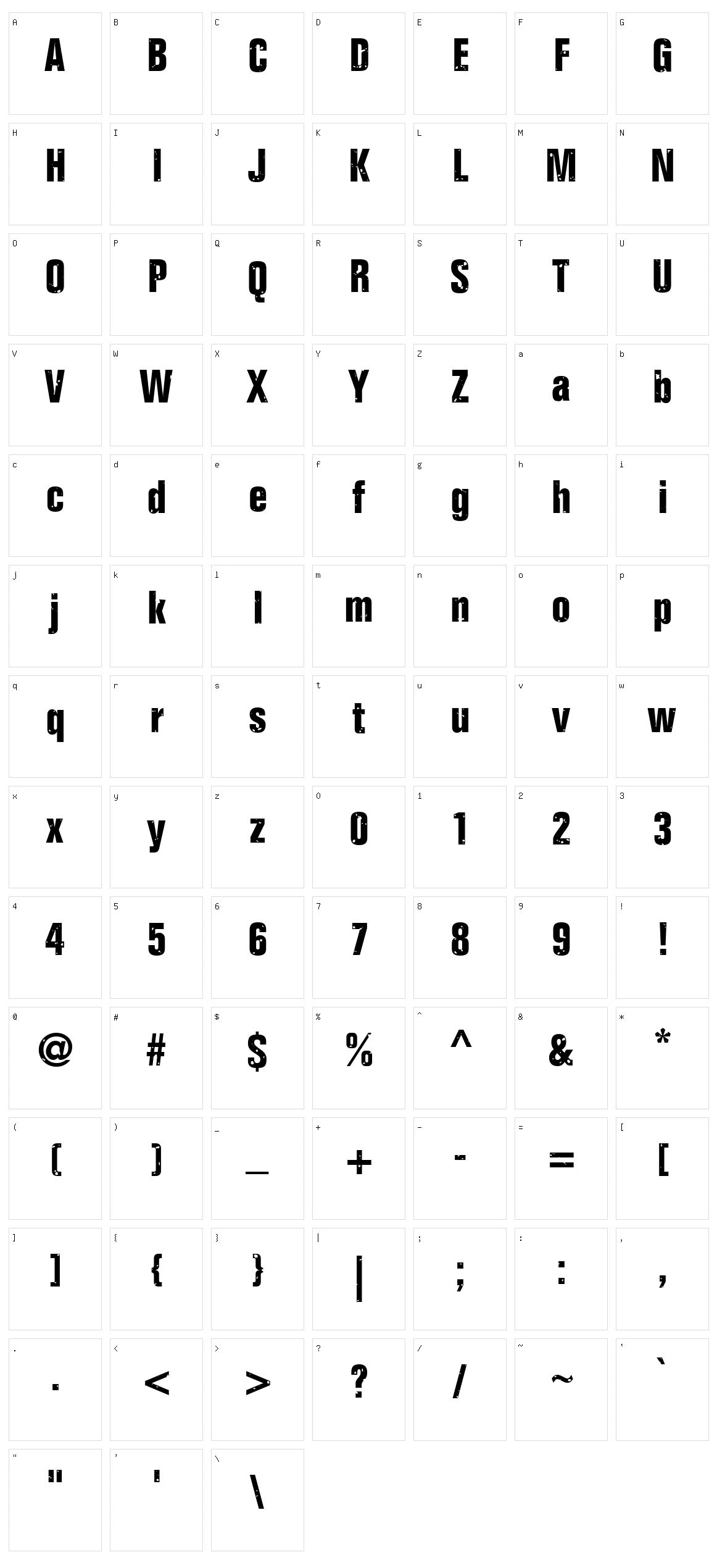
The free font Onkelz 2014 is carefully designed by Bo-stuff, showcasing a thoughtful balance of creativity and usability and falls under the Eroded font style. When you download the ZIP file, it contains only 77.96 KB of font files, making it lightweight and quick to download. Please review the license details below to understand permitted usage and distribution rights. If license information is not available, we recommend using this font for personal projects only or contacting the author directly for commercial usage permissions.